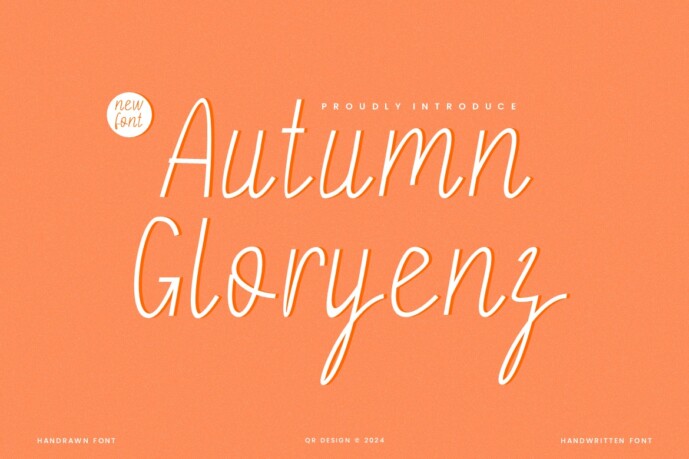
Autumn Gloryenz Font
Designer: qrdesignstd
Autumn Gloryenz Font is a handdrawn and authentic display font.
The font is suitable for any branding project like logo, sport, and many more.
Outstanding in a wide range of contexts.